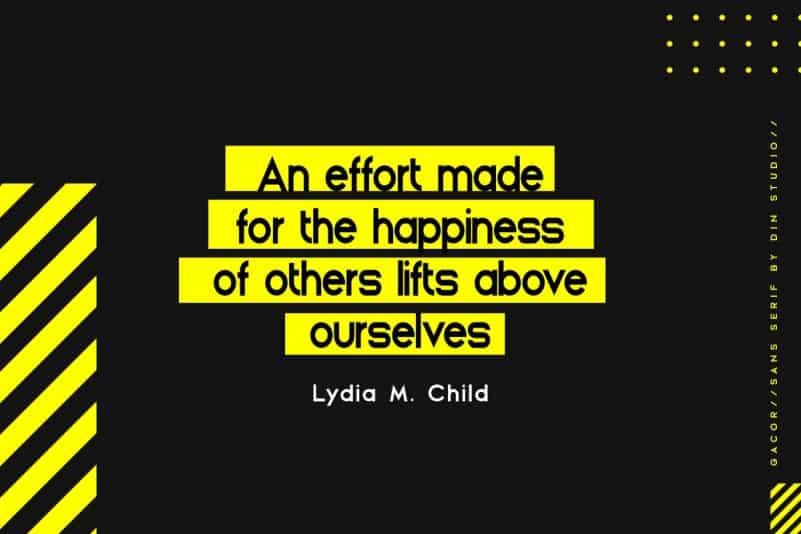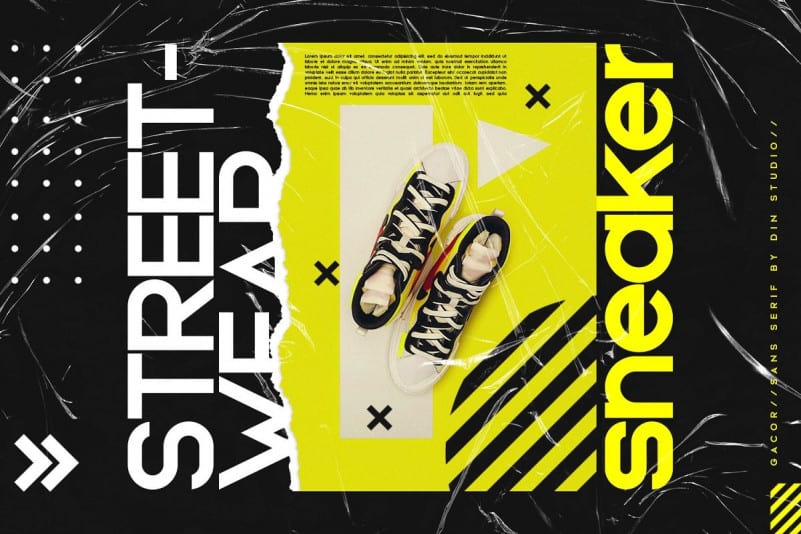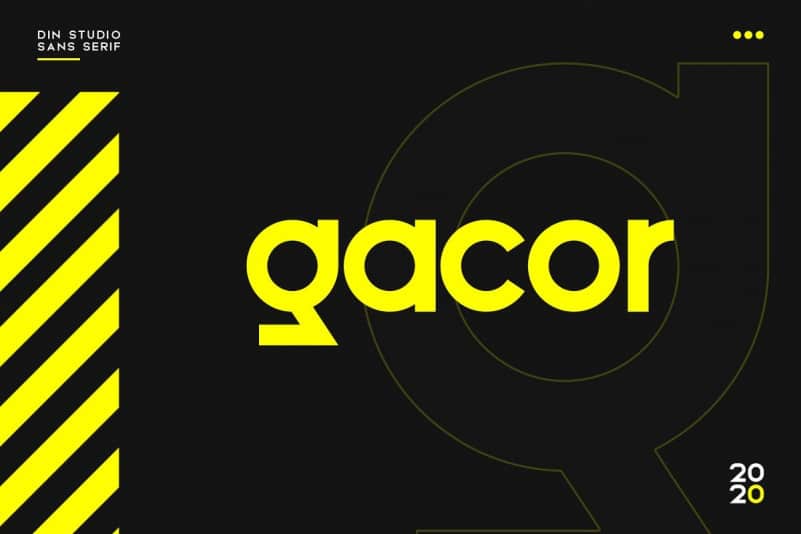
Gacor Sans Serif Font is a modern future sans serif display font. It’s strong appearance will be useful when creating commanding titles and headlines that demand attention. It’s a sans serif font from the designer Din Studio. Made for any professional project branding. It is the best for branding, printing, and quotes. Every letter has a unique and beautiful touch.